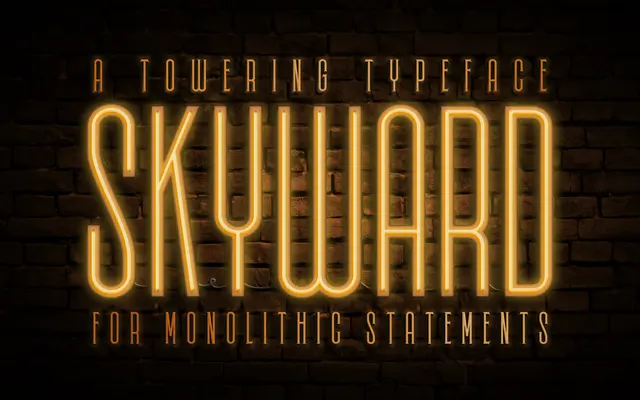
Skyward
Carmel Type Co. · Jason Carne
A tall, geometrically refined display typeface by Jason Carne with Art Deco sensibilities, offered in sans, serif and rounded variants across eight faces.
Carrying over 300 glyphs across eight styles, Skyward splits into three distinct subfamilies: sans serif, serif and rounded, each sharing the same upright, deco-inflected proportions. An alternative character set extends the typographic options for packaging, window signage and magazine headlines. The family is positioned squarely at luxury branding and bold advertising where a vertical, considered geometry is wanted.
Skyward is a geometric display typeface with Art Deco sensibilities, designed primarily for headlines, packaging and branding rather than continuous text. Its tall proportions and ornamental refinement place it firmly in the display category.